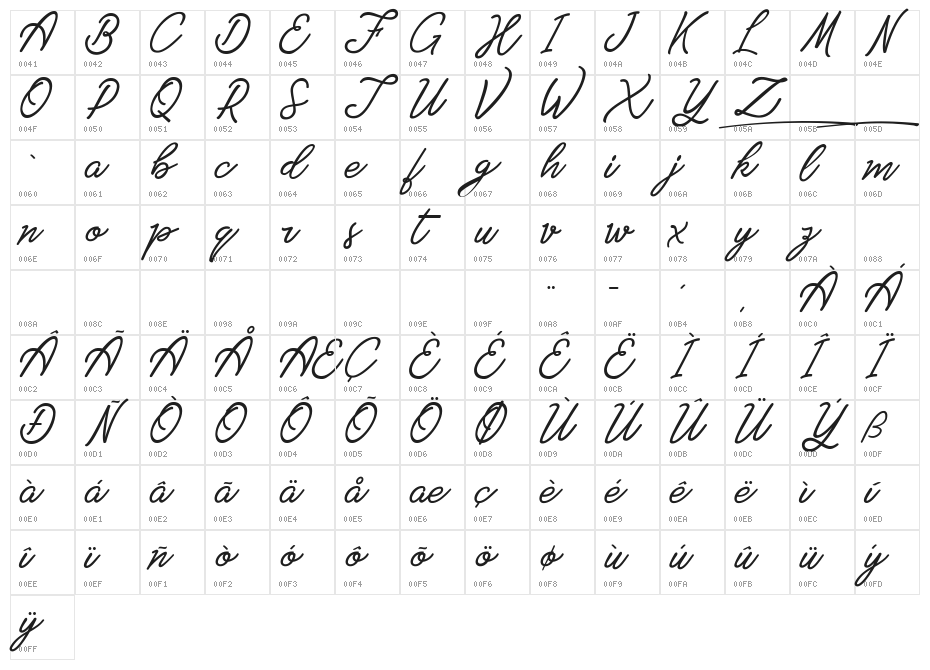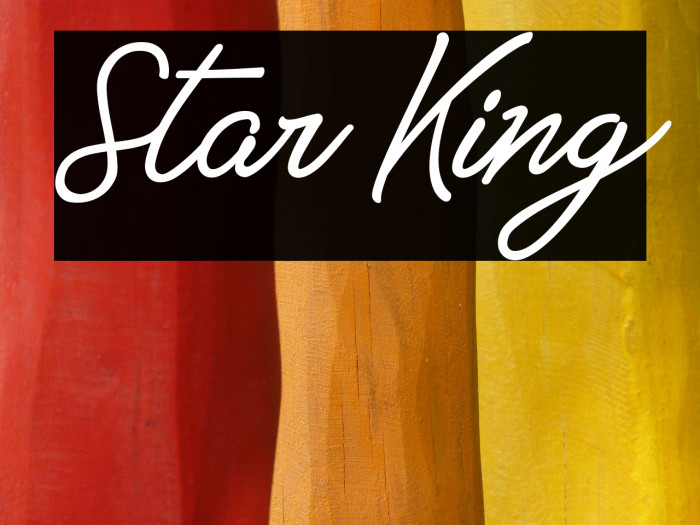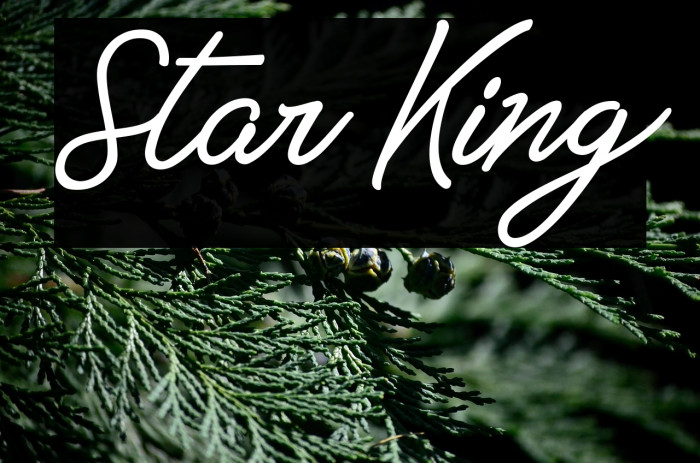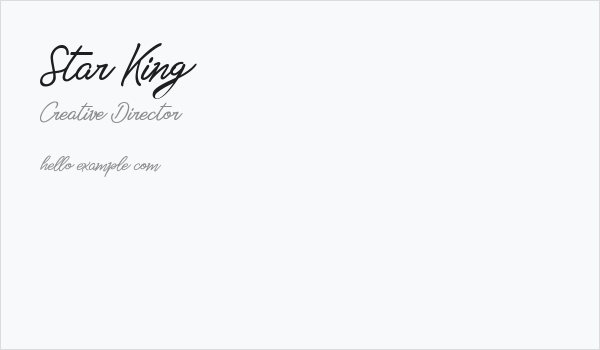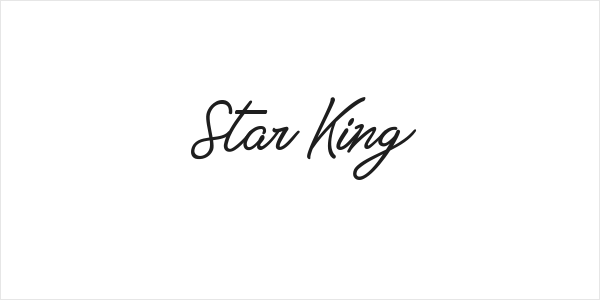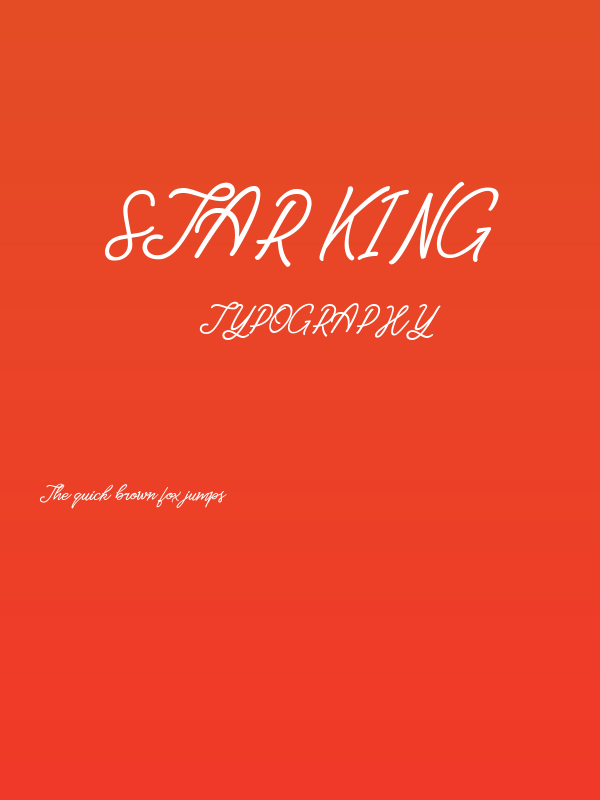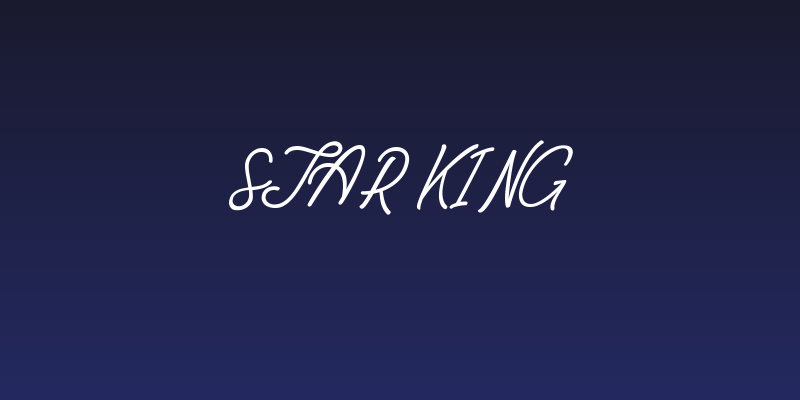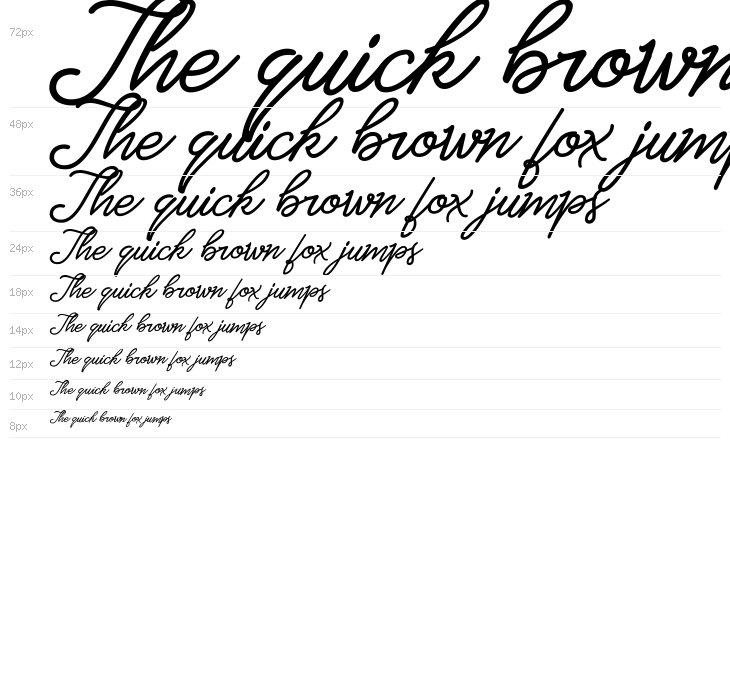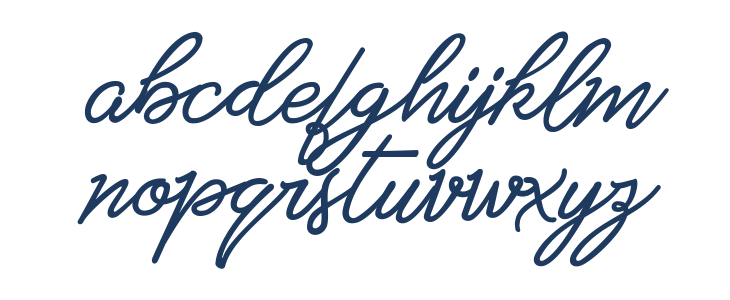
Star King Font
Star King Description
This font features a flowing, cursive style with elegant loops and swashes, creating a sense of fluidity and grace. The uppercase letters are slightly more elaborate, with extended strokes that add a touch of sophistication. The lowercase letters maintain a consistent rhythm, enhancing readability while preserving the decorative nature. The numbers and special characters are designed to match the overall script style, ensuring a cohesive look across all text elements. The font's design is reminiscent of traditional calligraphy, making it suitable for projects that require a personal or artistic touch.